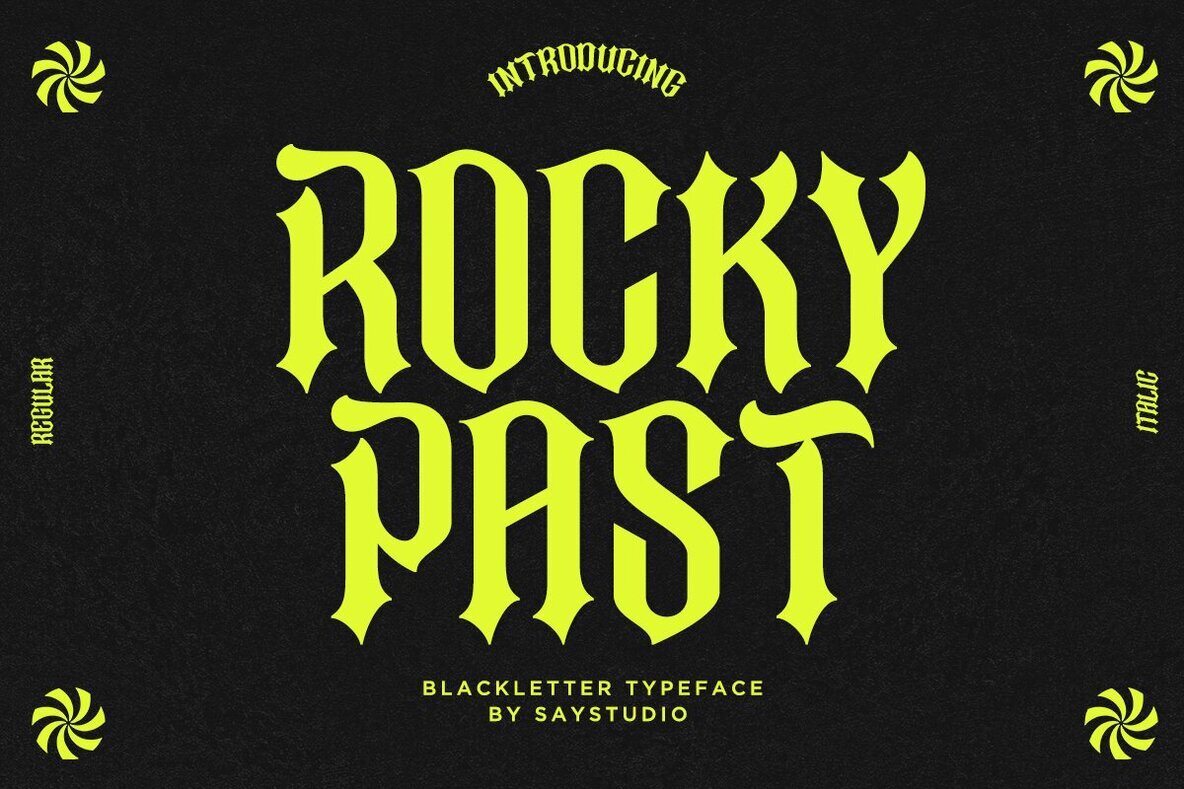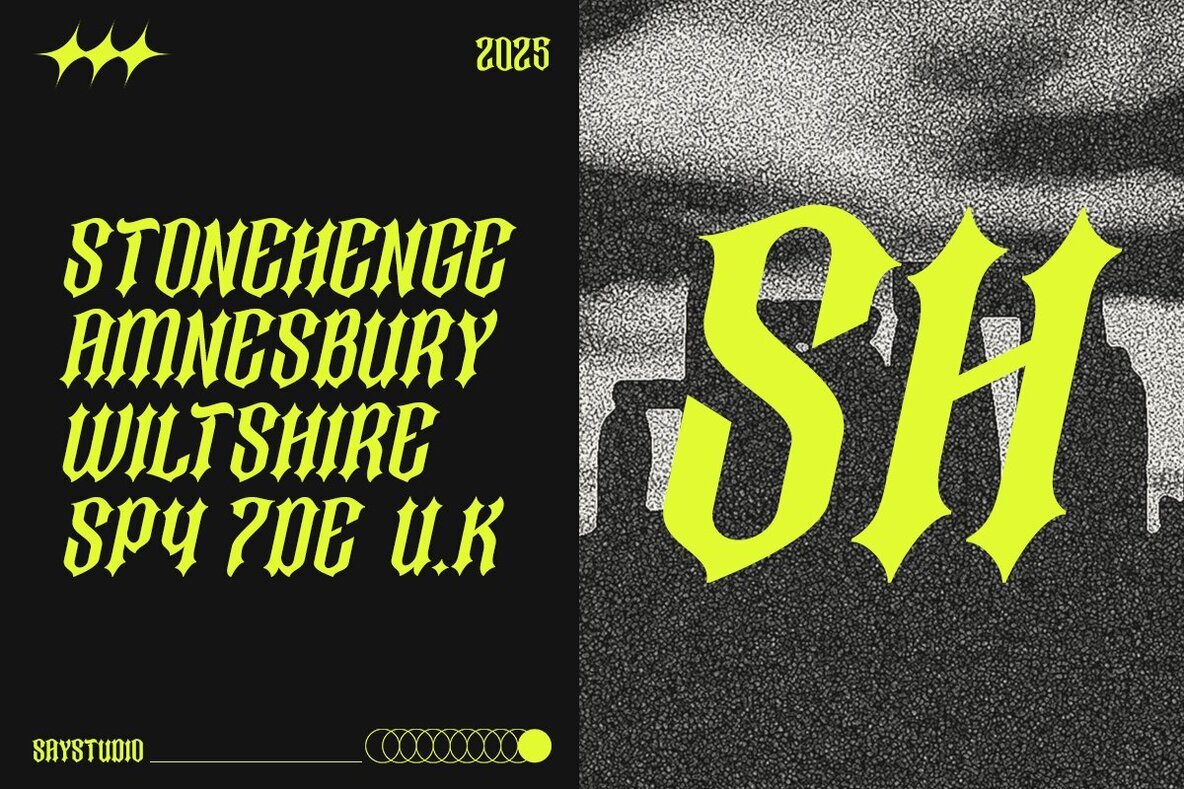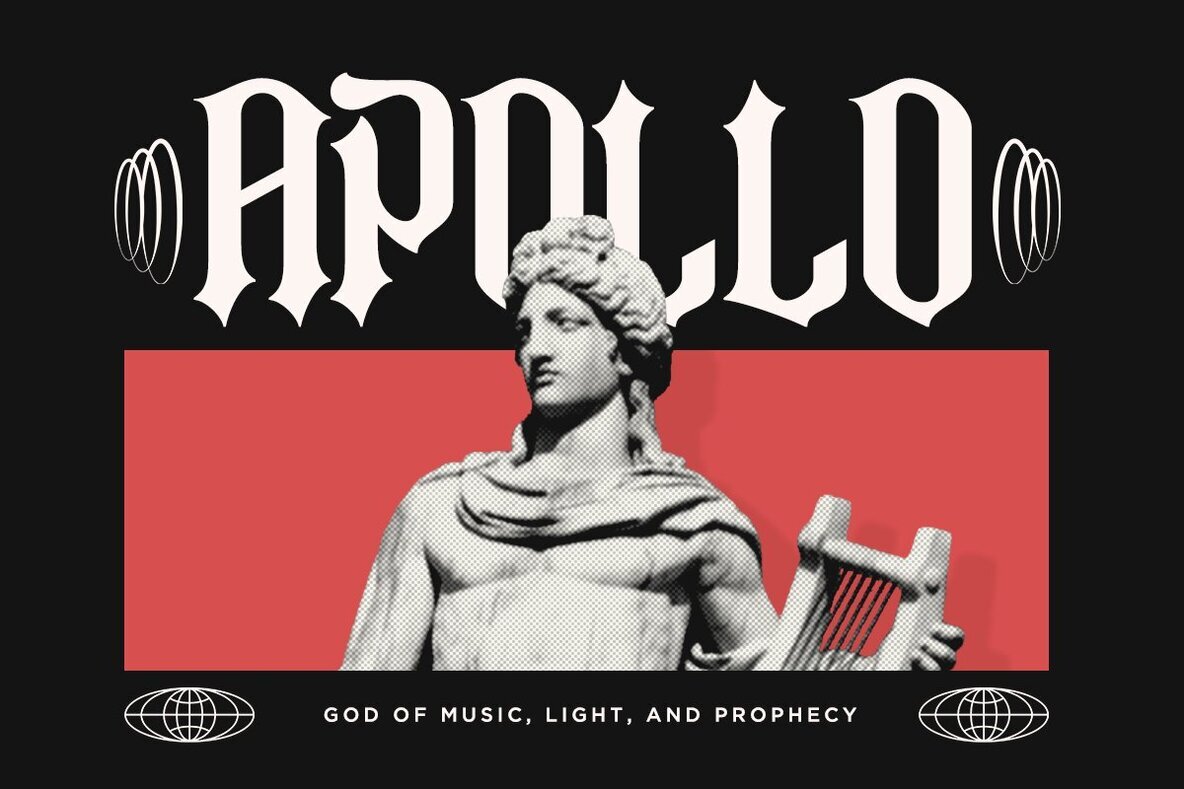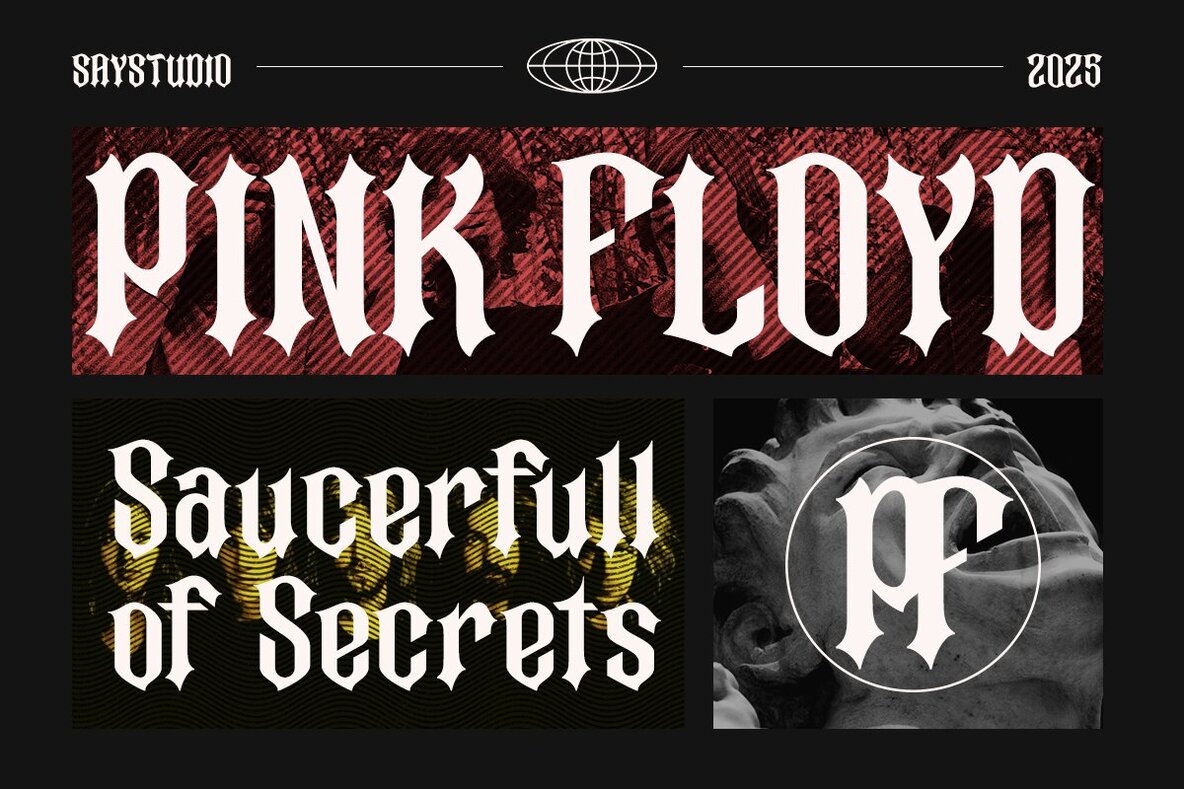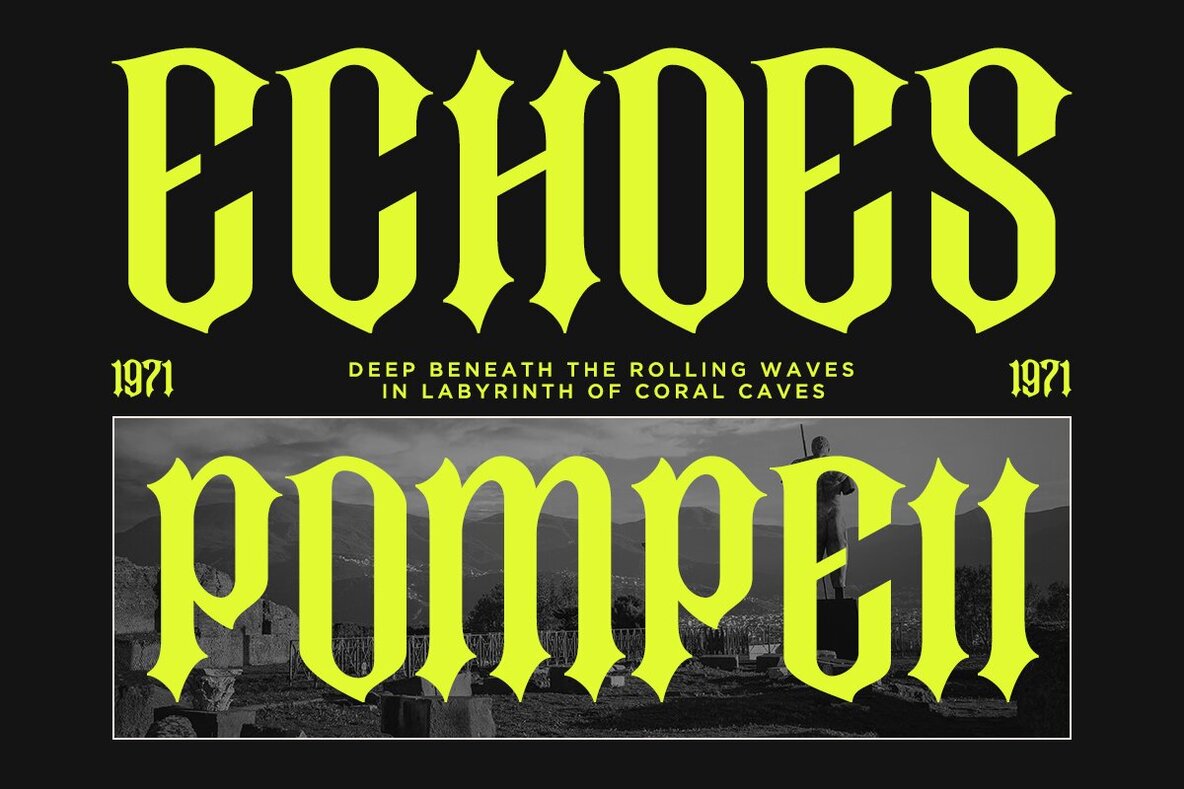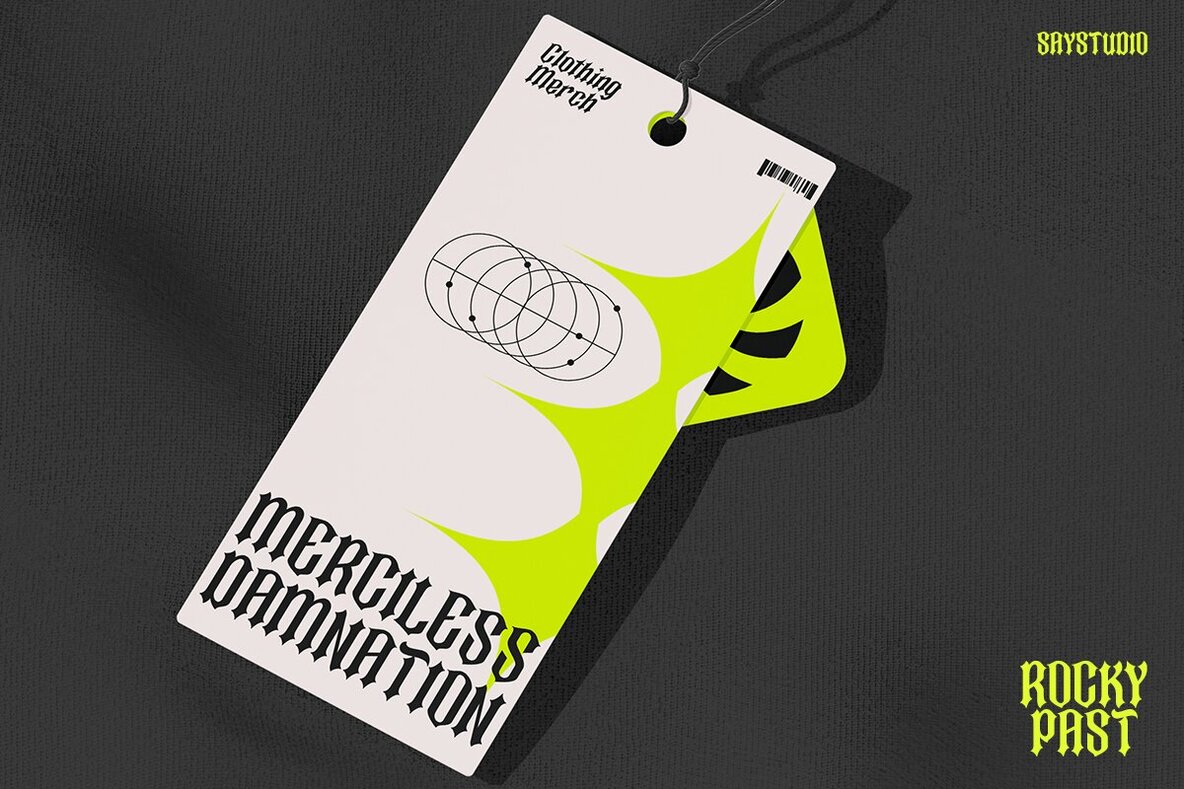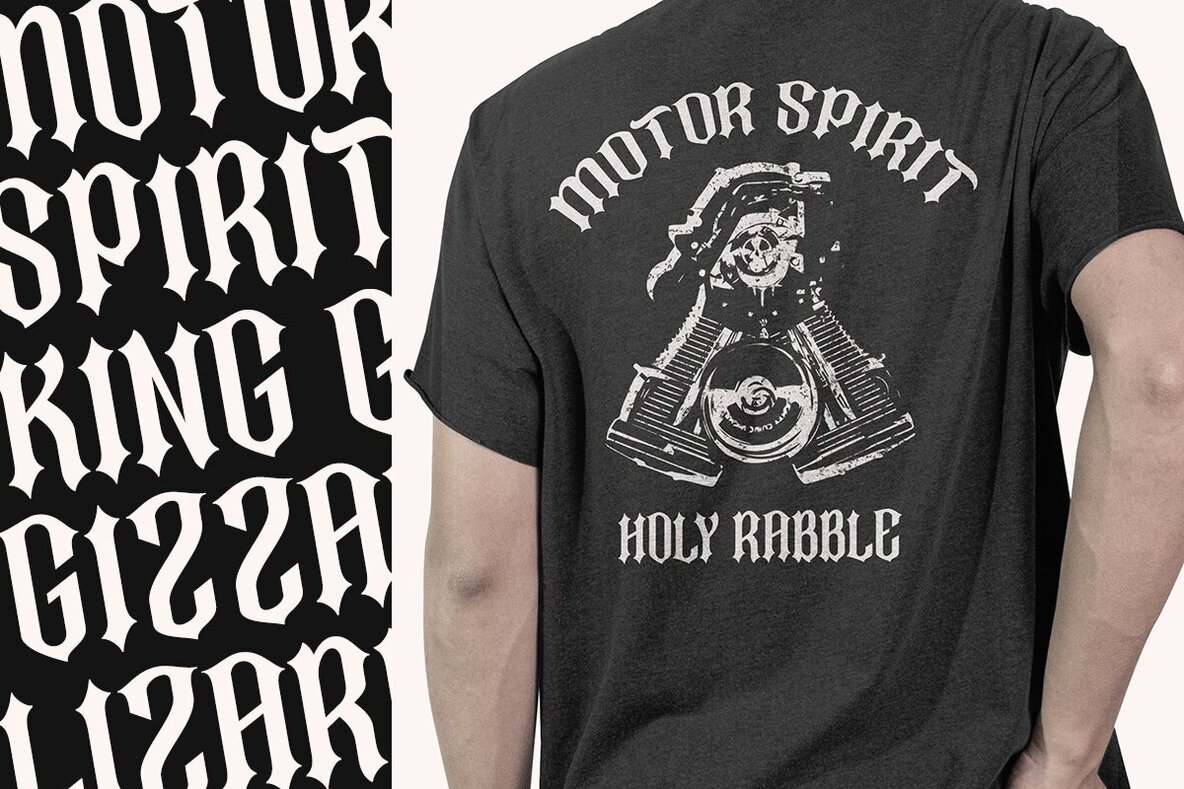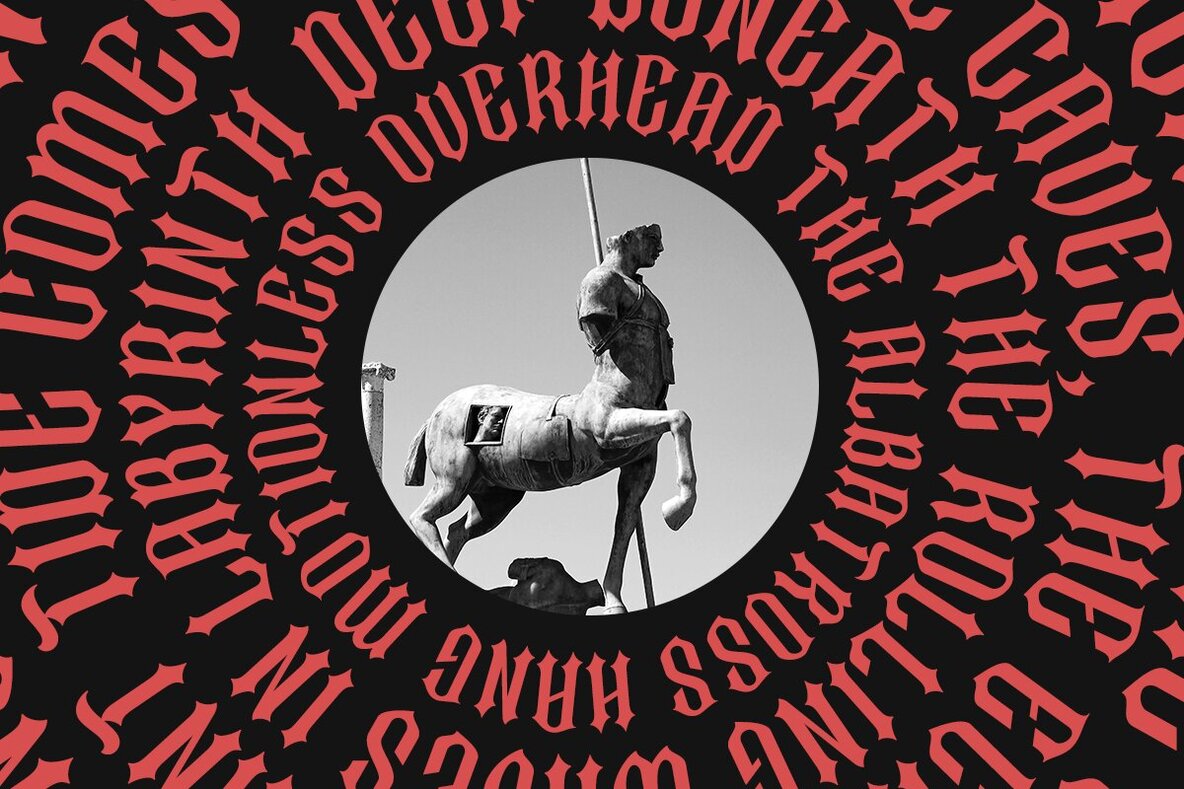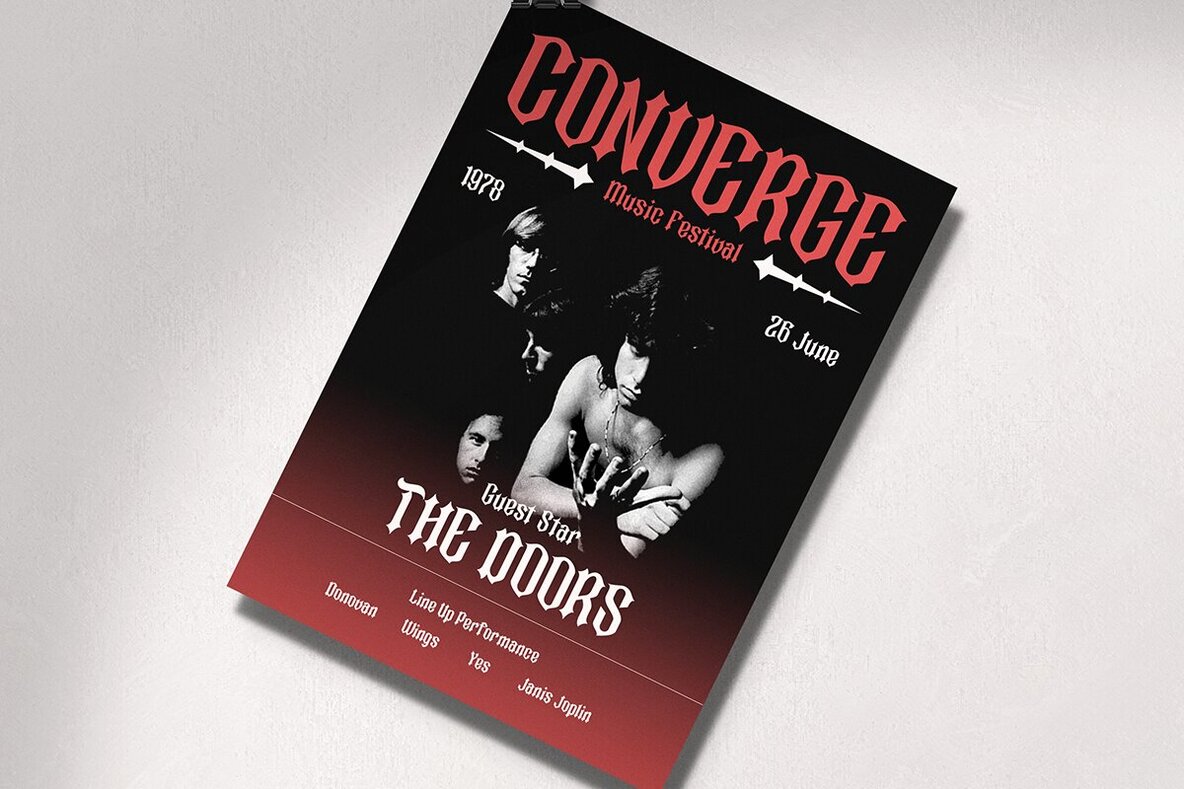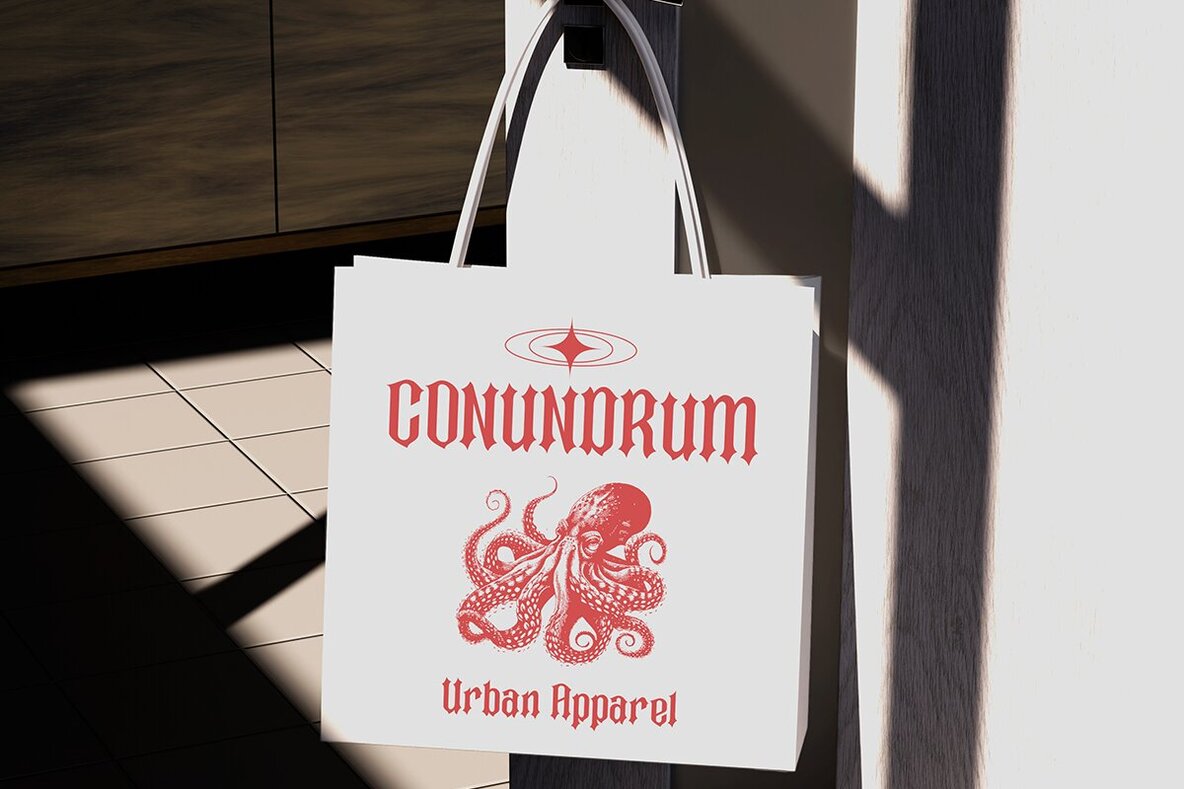
Rocky Past Font
Embrace the allure of dark beauty with Rocky Past, a blackletter display font meticulously designed to capture a modern style. This striking typeface merges the timeless appeal of blackletter with contemporary sans serif elements, making it a perfect choice for bold and impactful designs. Whether you're crafting a compelling poster, an iconic logo, or an eye-catching piece of apparel, Rocky Past delivers the elegance and power your project needs.Rocky Past Font